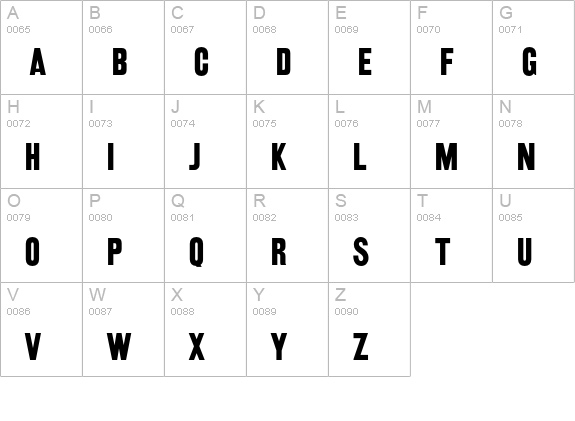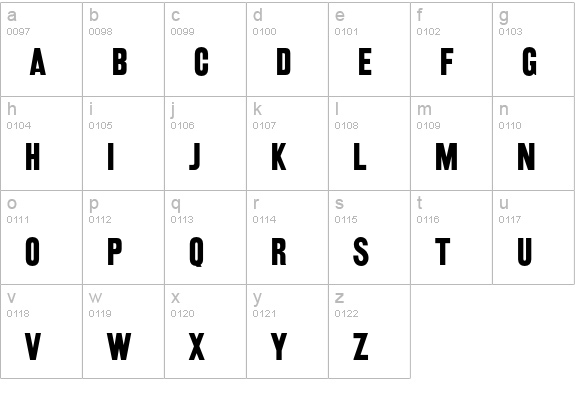
RailroadGothicRR Font Details
RailroadGothicRR font is a stunning display font that exudes a sense of boldness and industrial charm. With its strong and angular letterforms, this font is reminiscent of the classic typefaces used in the golden age of railroads. Its clean lines and sharp edges make it perfect for headlines, logos, posters, and any design that requires a touch of vintage elegance. What sets RailroadGothicRR font apart is not only its captivating aesthetics but also its accessibility. This font is free for personal and commercial use, allowing designers, artists, and enthusiasts alike to incorporate it into their projects without any restrictions. It is freely available to download at FontsMarket.com, making it easily accessible to anyone looking to add a touch of timeless beauty to their designs. Whether you are working on a retro-inspired advertising campaign, creating a vintage-inspired logo, or designing a poster that needs to capture the spirit of the past, RailroadGothicRR font is the perfect choice. Its versatility and timeless appeal make it a valuable asset in any designer's toolkit. With its wide range of characters, including uppercase letters, numbers, and basic punctuation, RailroadGothicRR font offers endless possibilities for creative expression. Its distinct personality and attention to detail ensure that your designs will stand out from the crowd and leave a lasting impression on your audience. Download RailroadGothicRR font today from FontsMarket.com and unlock the power of this captivating typeface. Whether you are a professional designer or a passionate hobbyist, this font will elevate your projects and bring them to life with its unique blend of vintage charm and contemporary appeal. Embrace the elegance of the past and infuse it into your designs with RailroadGothicRR font.